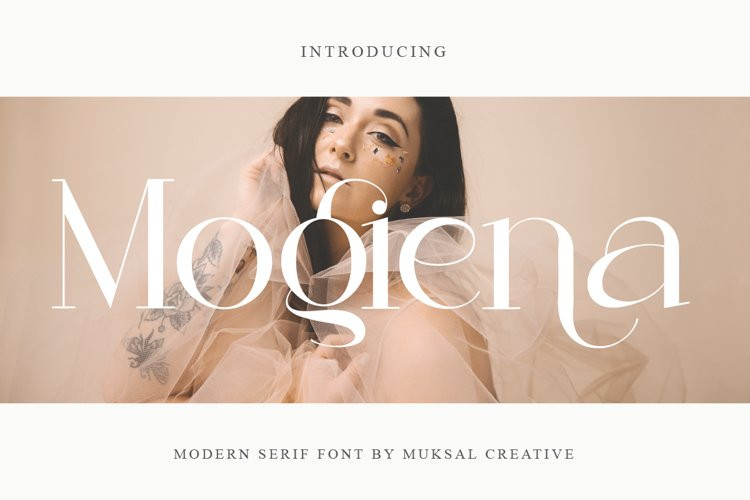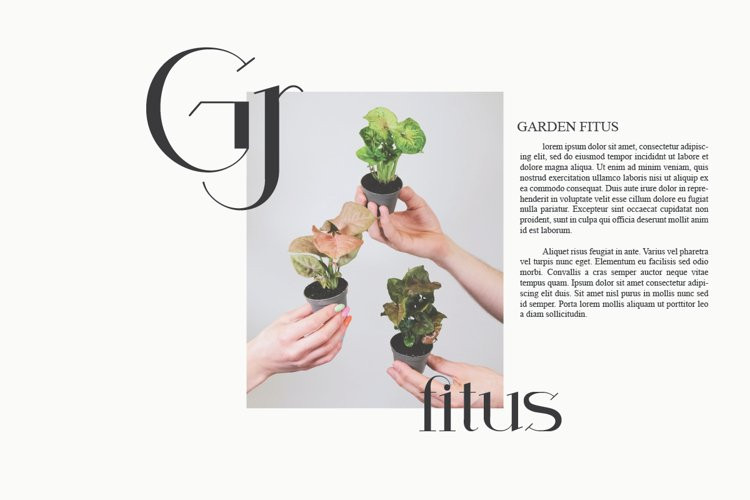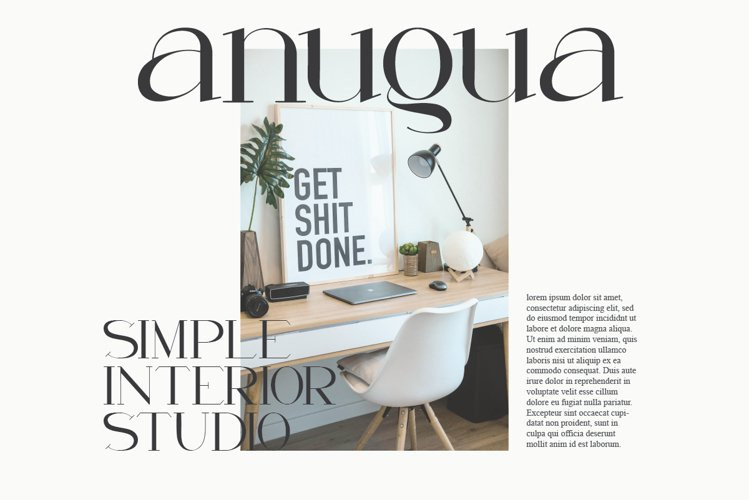
Mogiena Font
Mogiena FontMogiena Modern serif Font typeface with beautiful alternate and ligature, special glyphs, ornament and multilingual support. It’s a very versatile font that works great in large and small sizes. Perfect for editorial projects, Logo design, Clothing Branding, product packaging, magazine headers, or simply as a stylish text overlay to any background image.